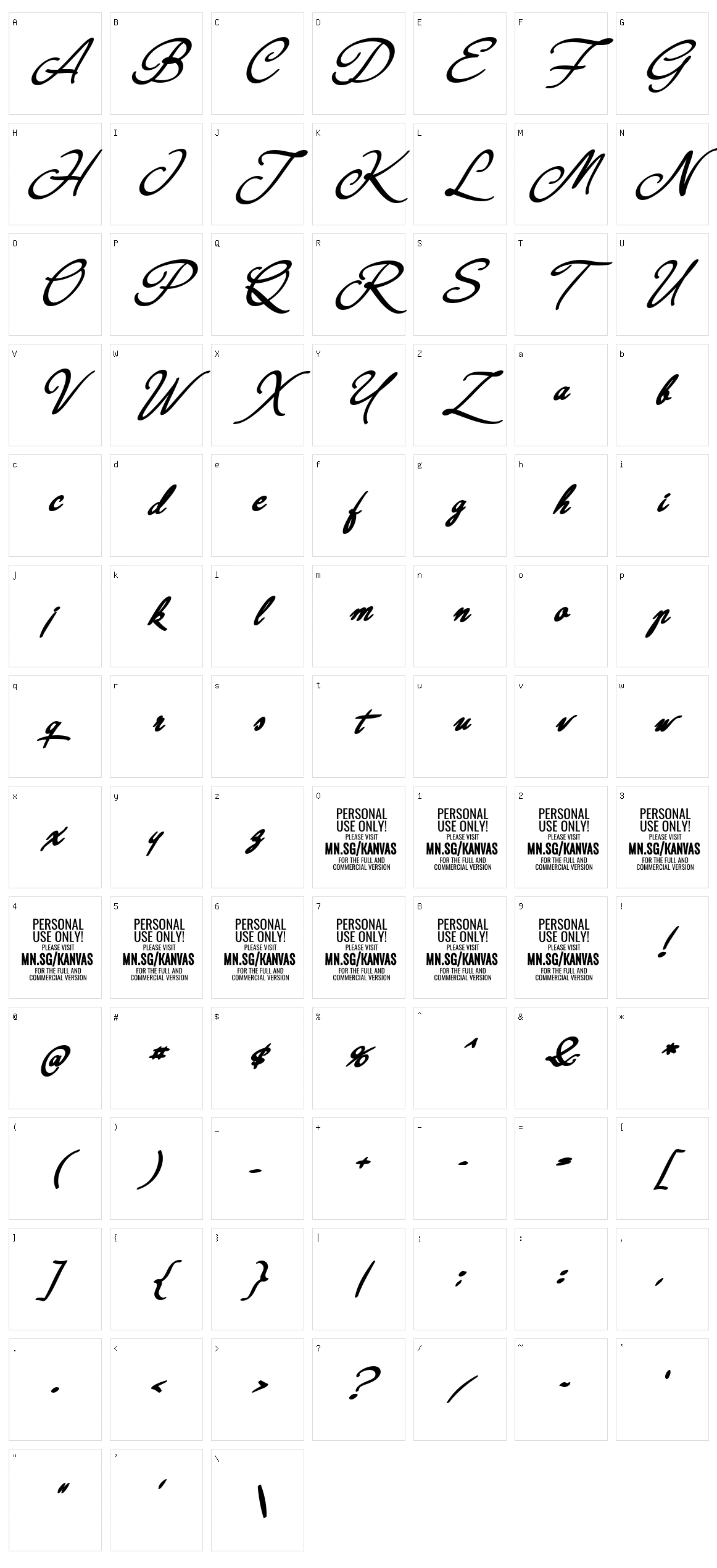
Kanvas is a flowing calligraphy script.
The typeface was drawn and created by Måns Grebäck between 2017 and 2020.
Its flowing shapes are inherited from mid-century advertising, being soft and friendly while retaining a sturdy forward movement.
Kanvas is a typeface family consisting of five weights: Thin, Light, Regular, Bold and Black.
Use it for an invitation card, in a celebratory context or as a logotype.
The font contains all characters you'll ever need, including all punctuation and numbers.
It has an extensive lingual support, covering all European Latin-based scripts.